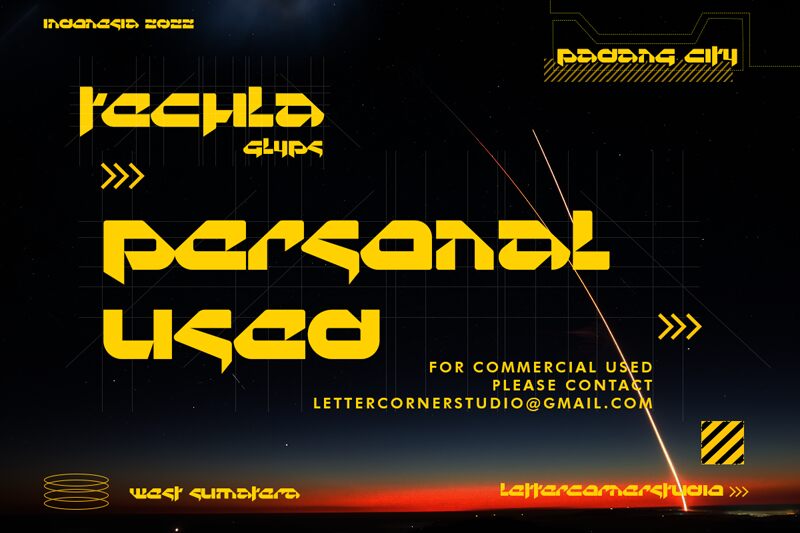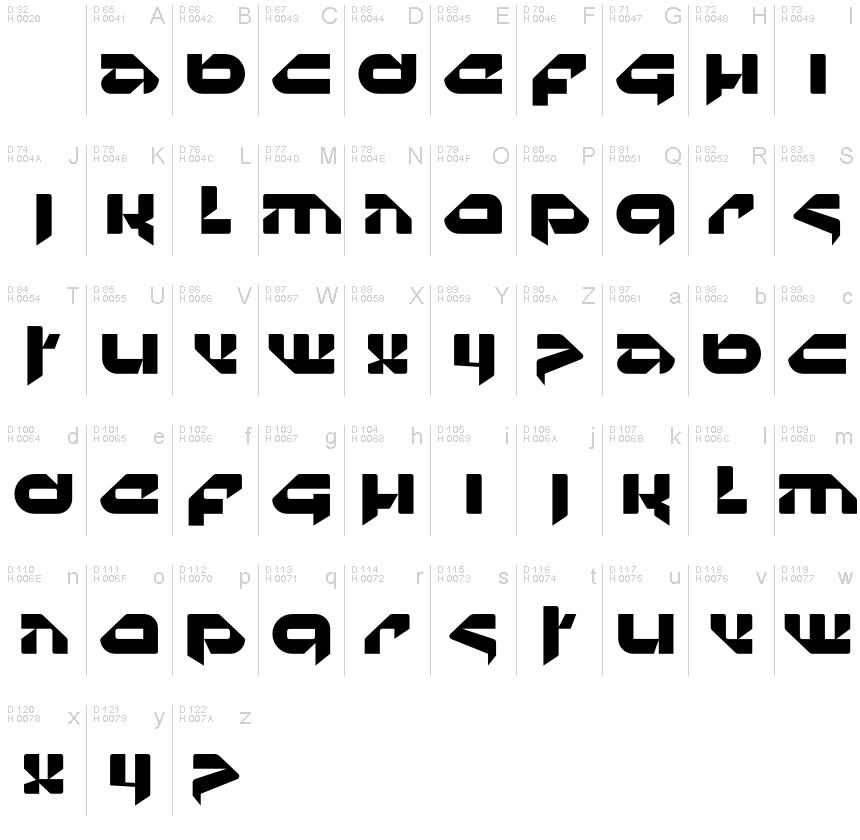
Techla Personal Used
Techla, a captivating display font crafted by Mocha Frappuccino, exudes a futuristic allure with its bold, expanded letterforms. This dynamic typeface boasts a distinctive, angular aesthetic, seamlessly blending modern elegance with a touch of industrial chic. The striking visual impact of Techla's design commands attention, making it a versatile choice for a range of applications.
Techla's bold, expansive nature lends itself well to eye-catching headlines, attention-grabbing branding, and dynamic digital interfaces. Its futuristic flair effortlessly complements sleek, minimalist designs, while also adding a sense of technological sophistication to more industrial-inspired aesthetics. Whether designing for cutting-edge tech startups, innovative product launches, or captivating event promotions, Techla's unique character can help elevate the visual impact and memorability of any project.